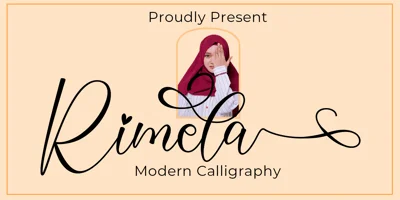
Rimela Font
The Rimela Font excels in various design applications including elegant poetry publication branding, romantic literary magazine layouts, sophisticated bookstore signage, graceful creative writing materials, refined literary society communications, elegant author brand identities, sophisticated reading club promotions, graceful manuscript designs, elegant literary event marketing, and distinguished literary projects that demand poetic elegance and refined sophistication.
What makes the Rimela Font exciting is its lyrical embodiment of poetic beauty and literary grace through letterforms that capture the essence of rhythmic verse and the sophisticated elegance of literary expression. This typeface demonstrates exceptional refinement through carefully crafted characters that suggest the flowing cadence of beautiful poetry, the graceful structure of elegant prose, and the timeless appeal that makes literary arts so profoundly moving and intellectually enriching. The font's poetic personality makes it perfect for literary organizations and publishing houses seeking to communicate artistic authenticity, literary sophistication, and the kind of refined elegance that creates memorable literary experiences through typography that literally flows with poetic rhythm.
The Rimela Font family typically includes lyrical weight variations that enhance the literary aesthetic, featuring graceful proportions and extended character sets optimized for publishing communications and literary applications. These family options often include poetry-inspired alternates, literary symbols, and elegant decorative elements that provide designers with comprehensive tools for creating authentically literary typography that celebrates poetic expression while maintaining contemporary design appeal and publishing credibility.
Literary professionals and publishing organizations consistently select Rimela Font for projects requiring typography that communicates literary authenticity and poetic sophistication. This typeface delivers exceptional performance in literary marketing, publishing branding, and poetic communications where establishing elegance and creating refined atmosphere is essential for literary audience engagement. The font's poetic character makes it particularly effective for poetry and manuscript applications. Download Rimela Font today to access this literarily elegant typeface that transforms poetic communications with its refined beauty and literary sophistication, creating compelling reading experiences that honor the magnificent artistry of literary expression while celebrating the graceful rhythm that defines authentic poetic culture and literary excellence.